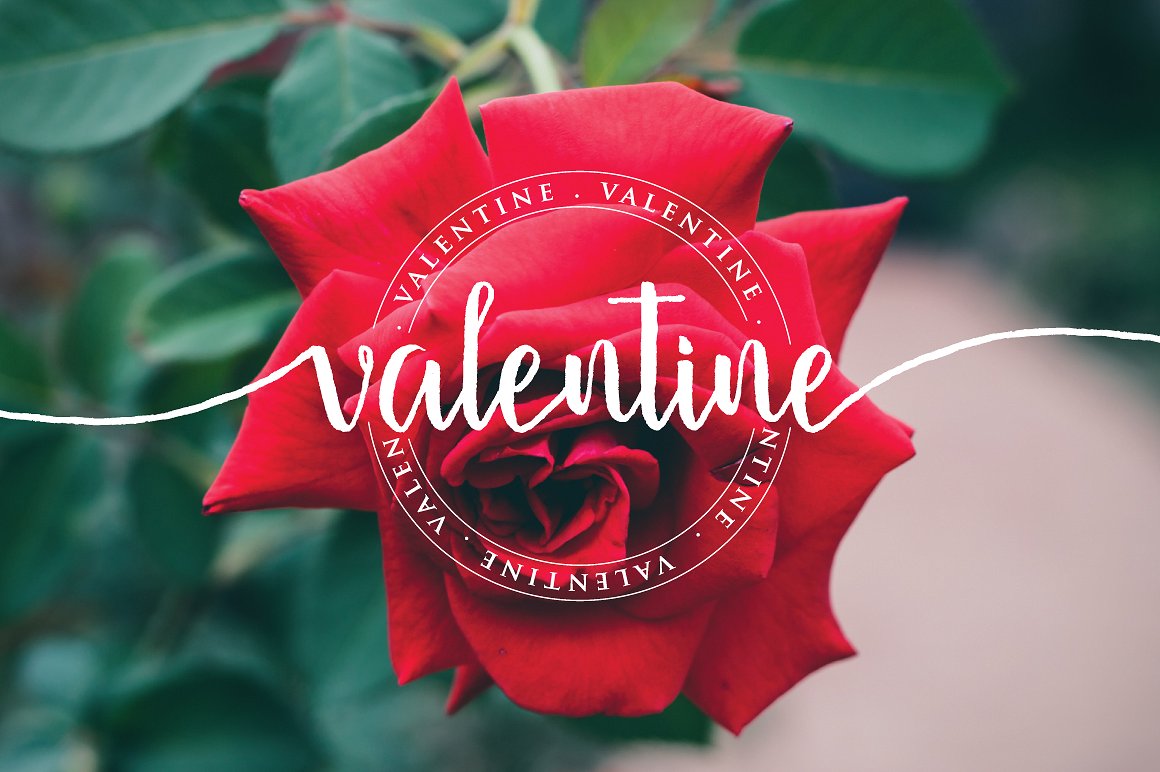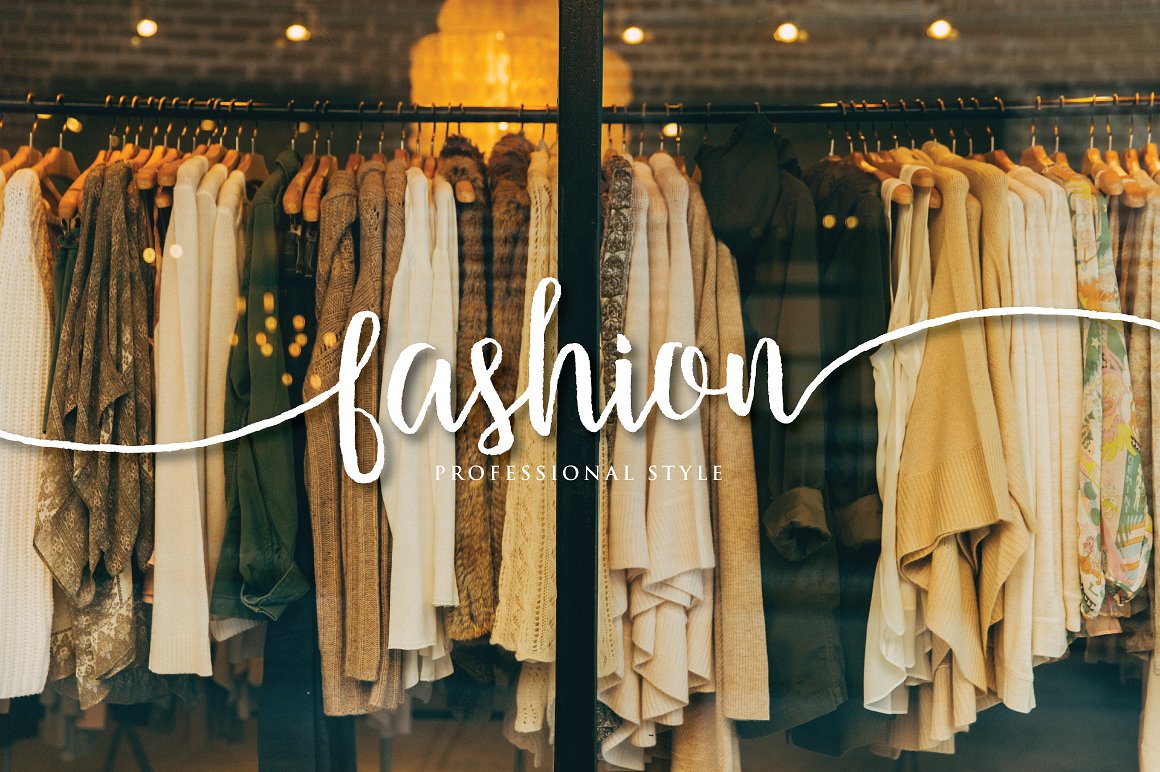
Firdaus Script Font
A new script font, it’s good if you add it to your collection of fonts. Introducing Firdaus Script Font! Firdaus Script designed and shared by Atjcloth Studio. Firdaus Script a handmade font awesome, new fresh & modern script with a calligraphy style. Can used for anything from promotional material and handwritten quotes, to product packaging, labels,logo newsletters, posters, merchandise and branding projects.